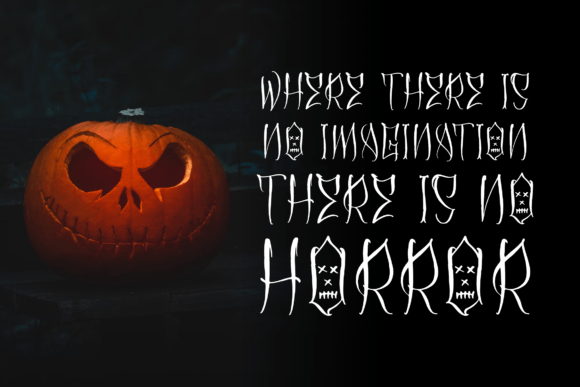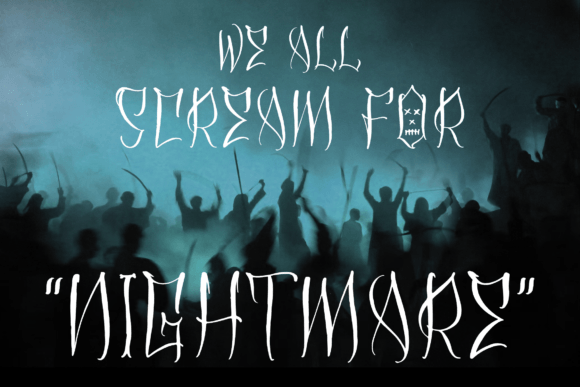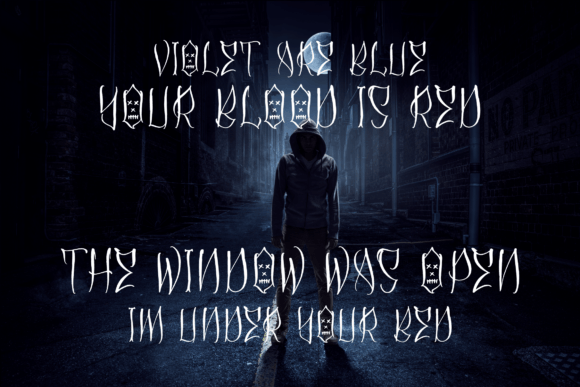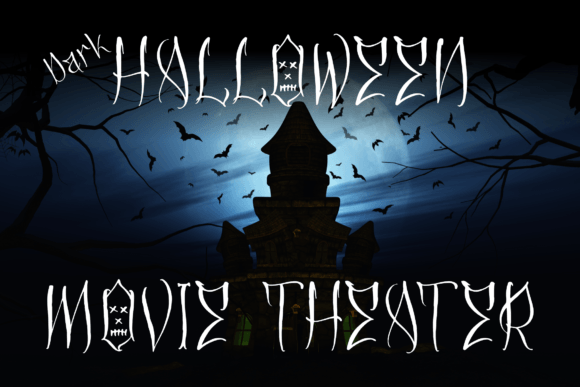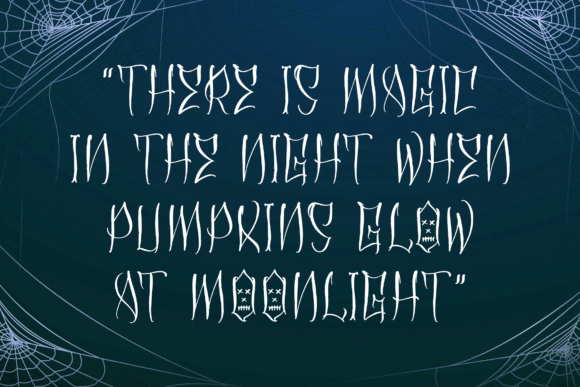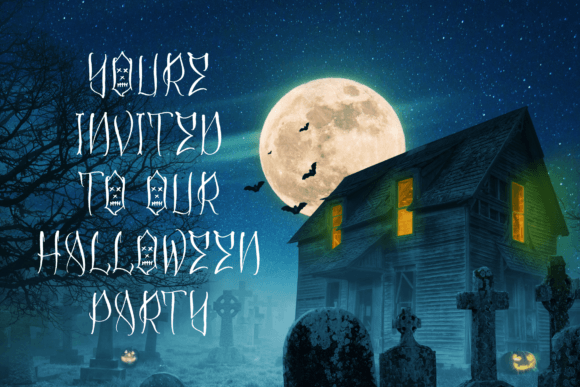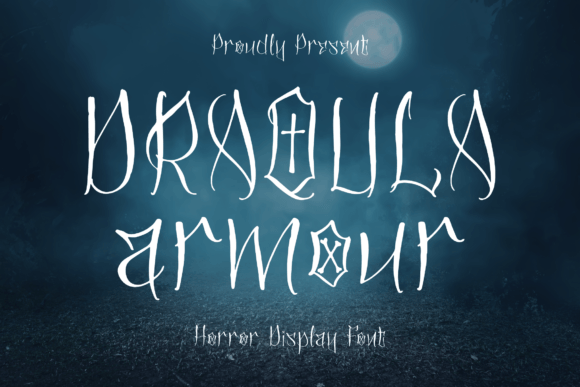
Draqula Armour Font: The Ultimate Horror Handwritten Font for Creepy Designs
Are you a designer or crafter looking for a font that can add a touch of horror and mystery to your projects? Look no further than the Draqula Armour font. This handwritten font is perfect for creating creepy and eye-catching designs that will leave a lasting impression on your audience. In this article, we’ll explore the features and benefits of the Draqula Armour font and show you how to use it to take your designs to the next level.
What is Draqula Armour Font?
Draqula Armour is a horror handwritten font that is suitable for a wide range of projects, including logos, branding projects, homeware designs, product packaging, mugs, quotes, posters, shopping bags, t-shirts, book covers, name cards, invitation cards, greeting cards, labels, photography, watermarks, and special events. This font is designed to add a creepy script taste to your designs, making it perfect for Halloween-themed projects, horror movies, and other spooky events.
Features of Draqula Armour Font
The Draqula Armour font has several features that make it a great choice for designers and crafters. Some of its key features include:
• Handwritten style: The Draqula Armour font has a unique handwritten style that gives it a personal and creepy touch.
• Horror theme: The font is designed specifically for horror-themed projects, making it perfect for Halloween, horror movies, and other spooky events.
• Versatile: The Draqula Armour font can be used for a wide range of projects, from logos and branding to homeware designs and product packaging.
Benefits of Using Draqula Armour Font
Using the Draqula Armour font can bring several benefits to your designs. Some of the benefits include:
• Unique and eye-catching designs: The Draqula Armour font can help you create unique and eye-catching designs that will stand out from the crowd.
• Creepy and mysterious touch: The font’s horror theme can add a creepy and mysterious touch to your designs, making them perfect for horror-themed projects.
• Increased engagement: The Draqula Armour font can help increase engagement with your audience, especially if you’re targeting fans of horror movies and Halloween.
• Professional look: The font’s handwritten style can give your designs a professional look, making them suitable for business and commercial use.
Tips and Tricks for Using Draqula Armour Font
Here are some tips and tricks for using the Draqula Armour font:
• Experiment with different sizes and styles: Experiment with different sizes and styles of the Draqula Armour font to find the one that works best for your design.
• Combine with other fonts: Combine the Draqula Armour font with other fonts to create a unique and eye-catching design.
• Use in combination with images: Use the Draqula Armour font in combination with images to create a creepy and mysterious design.
• Keep it simple: Keep your design simple and avoid cluttering it with too many design elements.
The Draqula Armour font is a great choice for designers and crafters looking to add a touch of horror and mystery to their designs. With its unique handwritten style and horror theme, this font is perfect for a wide range of projects, from logos and branding to homeware designs and product packaging. By following the tips and tricks outlined in this article, you can create unique and eye-catching designs that will leave a lasting impression on your audience.